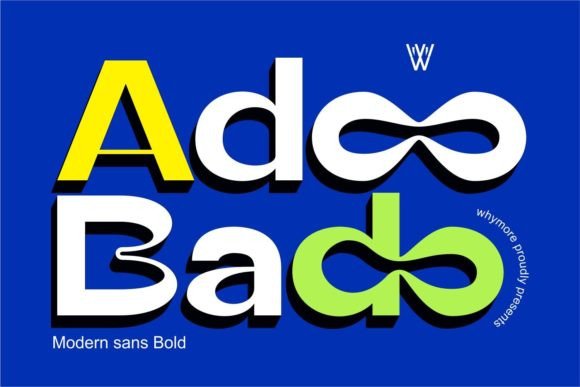
Discover the Power of Adoo Bado: A Bold and Modern Sans Serif Font
Have you ever been in the middle of a design project, only to find yourself stuck on one thing: the perfect font? I recall a particularly frustrating experience while working on a branding project for a trendy new cafe. The client wanted a font that was bold, modern, and eye-catching, but also clean and sophisticated. After hours of searching, I stumbled upon **Adoo Bado**, a sans serif font that instantly caught my attention. Its sleek lines, contemporary aesthetic, and versatility won me over, and it ended up being the perfect fit for the project.
Adoo Bado: A Comprehensive Review
What I Love About Adoo Bado
- ✨ Clean and Modern Design: Adoo Bado’s bold, minimalist style makes it perfect for branding, advertising, editorial, and digital design.
- ✅ Complete Character Set: The font includes uppercase, lowercase, ligatures, and numerals, providing maximum design flexibility.
- 💡 Versatile Application: Ideal for designers, marketers, and creative professionals, Adoo Bado enhances any project with its modern look and strong presence.
While Adoo Bado is an excellent font, there are a few minor considerations to keep in mind:
- ⚠️ Limited Serif Options: As a sans serif font, Adoo Bado may not be the best choice for projects requiring a traditional serif look.
- 🤔 Legibility at Small Sizes: While Adoo Bado is generally clear and legible, it may not be the best choice for body text at very small sizes.
The Story Behind Adoo Bado
Adoo Bado was designed with the goal of creating a bold, modern sans serif font that combines clean lines with a sleek, contemporary aesthetic. The designer aimed to create a font that would be versatile and highly legible, making it suitable for a wide range of design applications.
| What is Adoo Bado? | Adoo Bado is a bold and modern sans serif font designed for a wide range of design applications, including branding, advertising, editorial, and digital design. |
| What type of projects is Adoo Bado suitable for? | Adoo Bado is ideal for projects that require a bold, modern look, such as branding, advertising, editorial, and digital design. |
| Is Adoo Bado easy to read? | Yes, Adoo Bado is designed to be highly legible, making it suitable for both print and digital applications. |